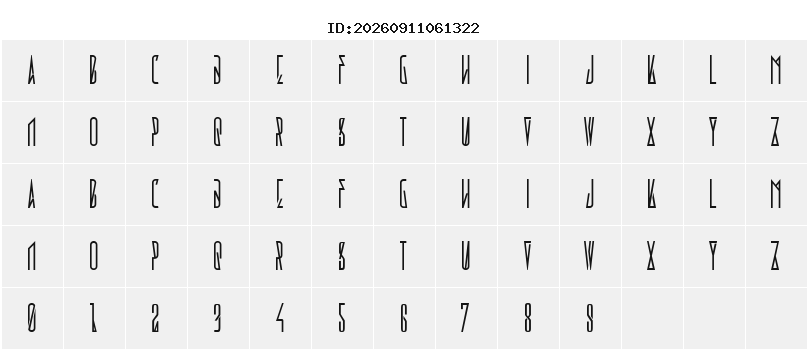
• Font Name: Variol
• Font ID: Variol
• Full Font Name: Variol
• PostScript Name: Variol-Regular
• Manufacturer: Ezza Zebra
• Description: Variol is a font by Ezza Zebra, designed by Adhreza in 2012.
About Variol.ttf
Variol.ttf is a modern, elegant sans-serif font designed for ultimate readability and visual harmony. Perfect for branding, headlines, web design, and print materials.